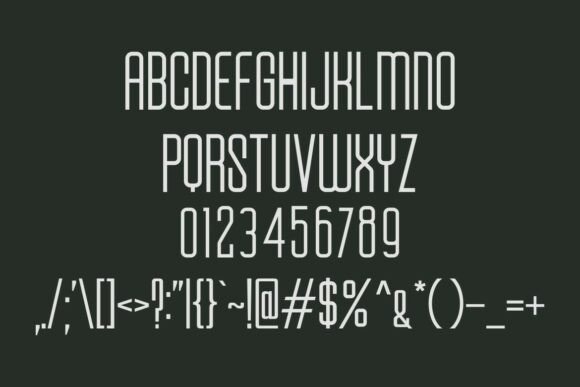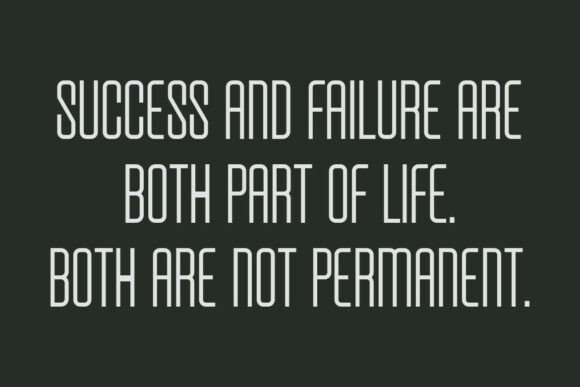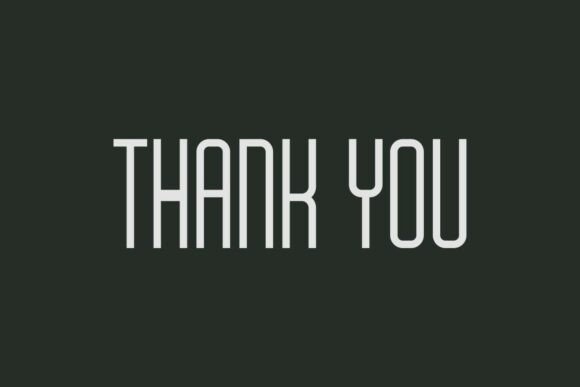
Discover the Futuristic Elegance of Fillano Font
In the realm of typography, the right font can elevate a design from ordinary to extraordinary. For those seeking a modern and minimalist aesthetic, Fillano Font is an exceptional choice. This sleek, elongated sans-serif typeface is designed to command attention, making it perfect for headlines, tech branding, and editorial layouts.
The Design Philosophy of Fillano
Fillano’s design is rooted in a fusion of futuristic elegance and geometric precision. Its elongated letterforms exude a sense of sophistication and refinement, while its clean lines and minimalist approach ensure a timeless impact. The font’s creator aimed to craft a typeface that not only looks contemporary but also remains relevant for years to come.
Key Features of Fillano Font
- Elongated Letterforms: Fillano’s letters are stretched vertically, giving it a unique and distinctive appearance.
- Geometric Precision: The font’s design is based on precise geometric shapes, providing a sense of order and balance.
- Minimalist Aesthetic: Fillano’s clean lines and simple shapes create a minimalist look that’s perfect for modern designs.
- High Versatility: The font is suitable for various applications, from headlines and titles to tech branding and editorial layouts.
Use Cases for Fillano Font
Fillano’s versatility makes it an excellent choice for a wide range of design projects. Here are some ideal use cases:
- Headlines and Titles: Fillano’s bold and elongated letterforms make it perfect for grabbing attention in headlines and titles.
- Tech Branding: The font’s futuristic and modern design makes it an excellent fit for tech companies and startups.
- Editorial Layouts: Fillano’s clean and minimalist aesthetic makes it suitable for editorial layouts, such as magazines and newspapers.
- Advertising and Marketing: The font’s attention-grabbing design makes it perfect for advertising and marketing materials.
Benefits of Using Fillano Font
By incorporating Fillano Font into your design projects, you can enjoy several benefits:
- Unique Visual Identity: Fillano’s distinctive design helps create a unique visual identity for your brand or project.
- Improved Readability: The font’s clean lines and simple shapes ensure excellent readability, even at small sizes.
- Flexibility: Fillano’s versatility makes it suitable for various design applications and industries.
- Timeless Appeal: The font’s minimalist and geometric design ensures a timeless appeal that won’t go out of style.
Tips for Using Fillano Font Effectively
To get the most out of Fillano Font, consider the following tips:
- Pair with Contrasting Fonts: Combine Fillano with contrasting fonts to create visual interest and hierarchy.
- Experiment with Sizes: Play with different font sizes to create a visually appealing hierarchy.
- Use Bold and Regular Weights: Use the bold weight for headlines and the regular weight for body text to create contrast.
- Consider Color: Choose colors that complement Fillano’s modern and minimalist aesthetic.
Fillano Font is a powerful tool for designers and crafters seeking a modern and minimalist aesthetic. Its sleek, elongated design and geometric precision make it perfect for headlines, tech branding, and editorial layouts. By incorporating Fillano into your design projects, you can create a unique visual identity, improve readability, and enjoy a timeless appeal. With its versatility and flexibility, Fillano Font is an excellent addition to any designer’s toolkit.